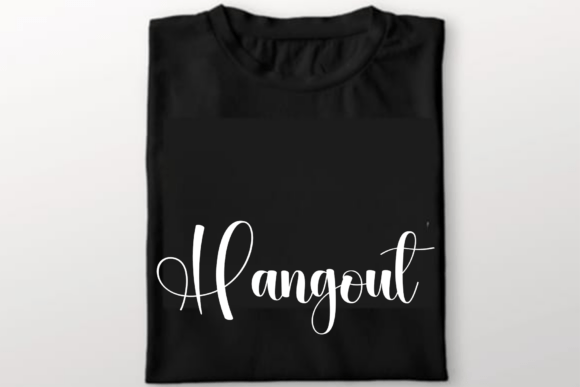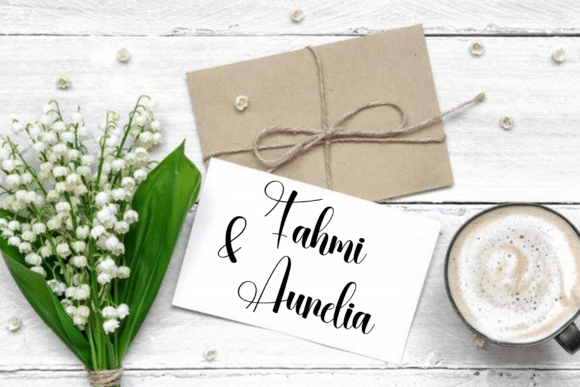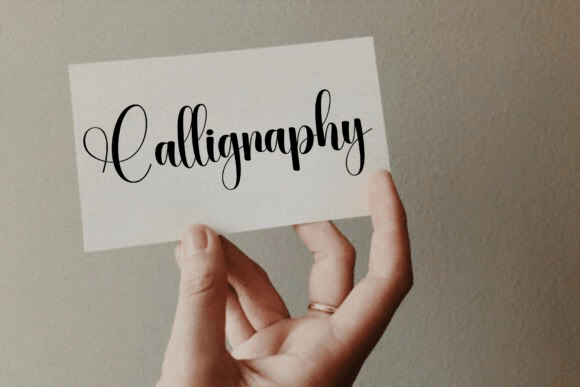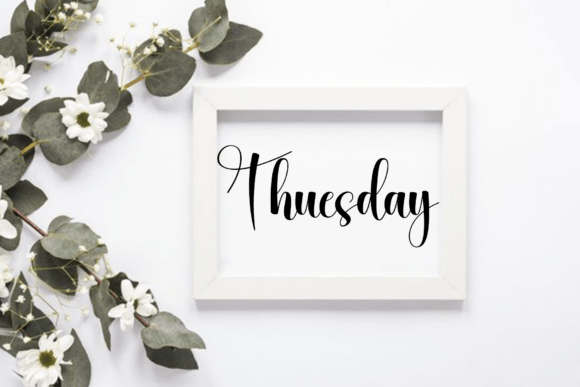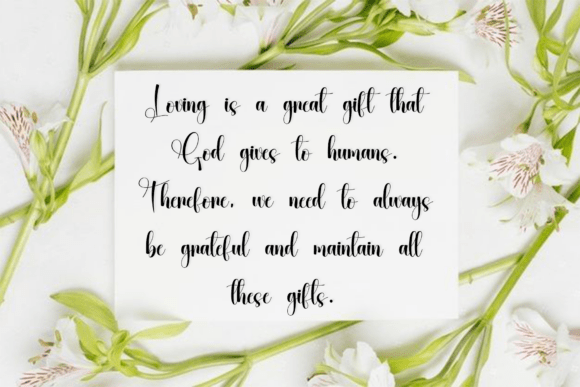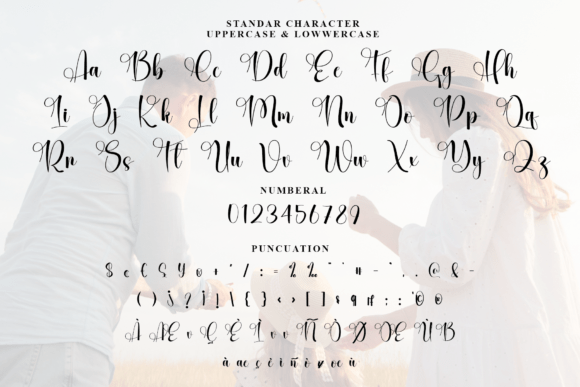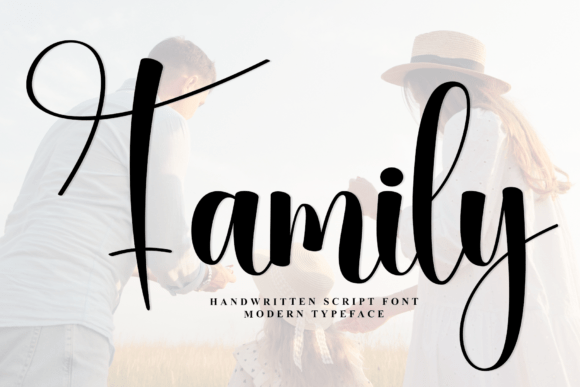
Introducing Family Font: The Epitome of Elegance and Sophistication
In the realm of typography, few fonts manage to capture the essence of modern sophistication as effortlessly as Family Font. This elegant and fluid handwritten script font has been meticulously crafted to bring a touch of luxury to any design project. Whether you’re a designer looking for the perfect typeface for a luxury wedding stationery or a crafter seeking to add a personalized aesthetic to your creations, Family Font is an exceptional choice.
The Characteristics of Family Font
Family Font boasts a range of distinctive characteristics that set it apart from other typefaces. Its high-contrast strokes lend a sense of drama and elegance, while the sweeping loops and fine, tapering terminals imbue the letterforms with a rhythmic and natural handwritten flow. The expansive horizontal presence of this font commands attention without overwhelming the senses, creating a perfect balance between sophistication and readability.
Aesthetic Appeal and Versatility
One of the standout features of Family Font is its delicate connections between characters. These subtle links provide a high-end, personalized aesthetic that is sure to elevate any design project. The font’s versatility is another one of its strong suits; it’s perfectly suited for a wide range of applications, from luxury wedding stationery and intimate event branding to high-end editorial signatures and sophisticated lifestyle photography overlays.
Design and Craft Applications
For designers and crafters, Family Font offers endless possibilities for creative expression. Here are a few ways this beautiful font can be utilized:
• Luxury Wedding Stationery: Add a touch of elegance to wedding invitations, save-the-date cards, and thank-you notes with Family Font.
• Intimate Event Branding: Create bespoke branding for events such as anniversaries, baby showers, and birthday parties that exudes warmth and sophistication.
• High-End Editorial Signatures: Use Family Font to add a personal and luxurious touch to editorial pieces, such as magazine articles and blog posts.
• Sophisticated Lifestyle Photography Overlays: Elevate lifestyle photography with elegant text overlays that complement the natural flow of the images.
Why Choose Family Font?
With so many typefaces available, why choose Family Font for your design projects? The answer lies in its unique blend of elegance, versatility, and personality. This font not only adds a touch of sophistication to any design but also brings a sense of warmth and approachability. Its fluidity and natural handwritten flow make it instantly recognizable and memorable.
Tips for Using Family Font Effectively
To make the most of Family Font, consider the following tips:
• Pair with Complementary Fonts: Combine Family Font with simpler sans-serif or serif fonts to create visual interest and hierarchy in your designs.
• Adjust Letter Spacing: Experiment with letter spacing to enhance readability and ensure a natural flow.
• Utilize Size and Weight: Play with different sizes and weights to add depth and emphasis to your text.
• Consider Color: Choose colors that complement the elegance of Family Font, such as soft pastels, rich jewel tones, or classic black and white.
Family Font is more than just a typeface; it’s a design statement. Its elegant and fluid handwritten script, combined with its high-end aesthetic, makes it the perfect choice for designers and crafters looking to add a touch of sophistication to their projects. With its versatility and timeless appeal, Family Font is sure to become a staple in your design toolkit.